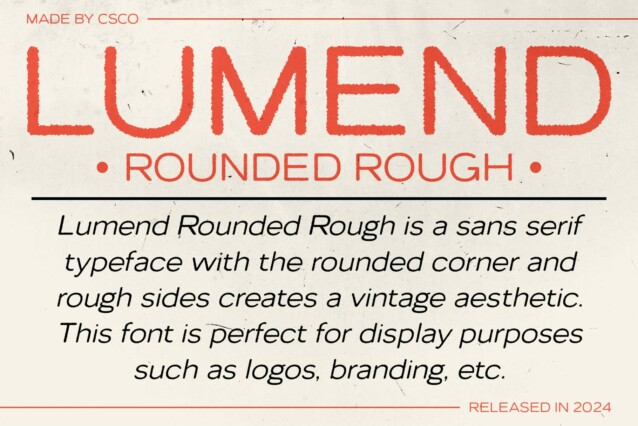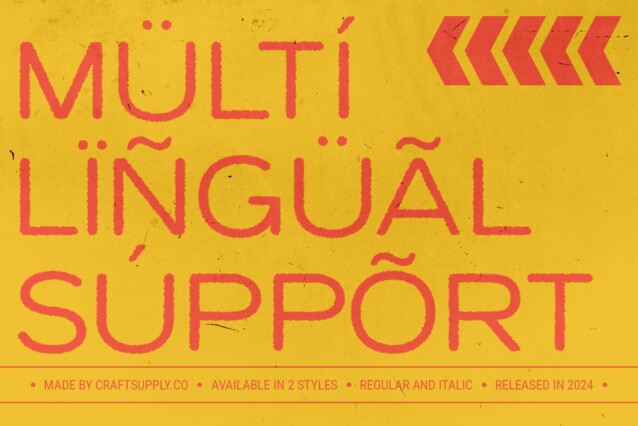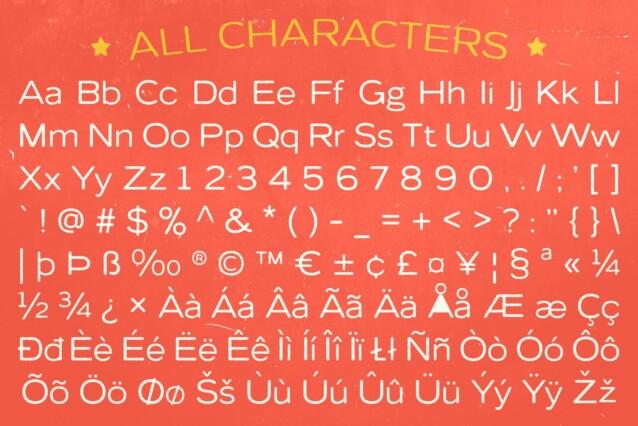
Lumend Rounded Rough Font
Lumend Rounded Rough Font is a modern sans-serif font that seamlessly blends contemporary minimalism with a distinctive rugged texture. The font’s grotesque design features clean, neutral lines that offer a minimalist aesthetic, while the rounded edges add a soft, approachable touch. This combination creates a harmonious balance between modern sophistication and a touch of friendly warmth.